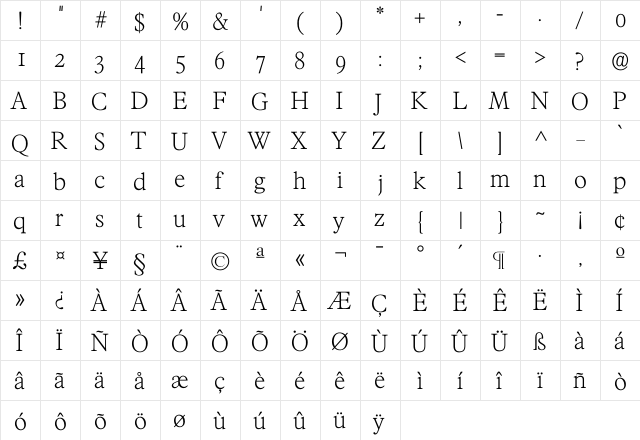
Franci Xlight
Design Context for Franci Typeface
Franci is a composed and adaptable typeface that performs quietly and consistently across a wide range of design contexts. Its slender proportions lend an understated elegance to any composition.